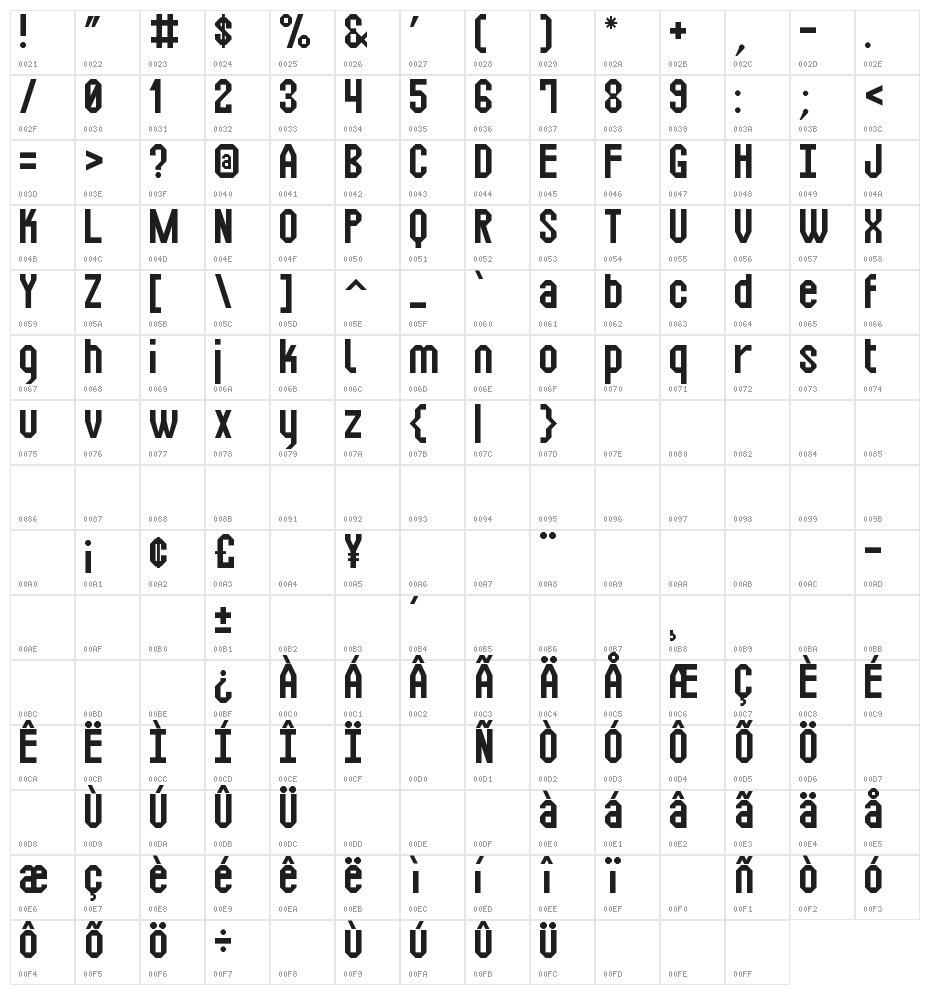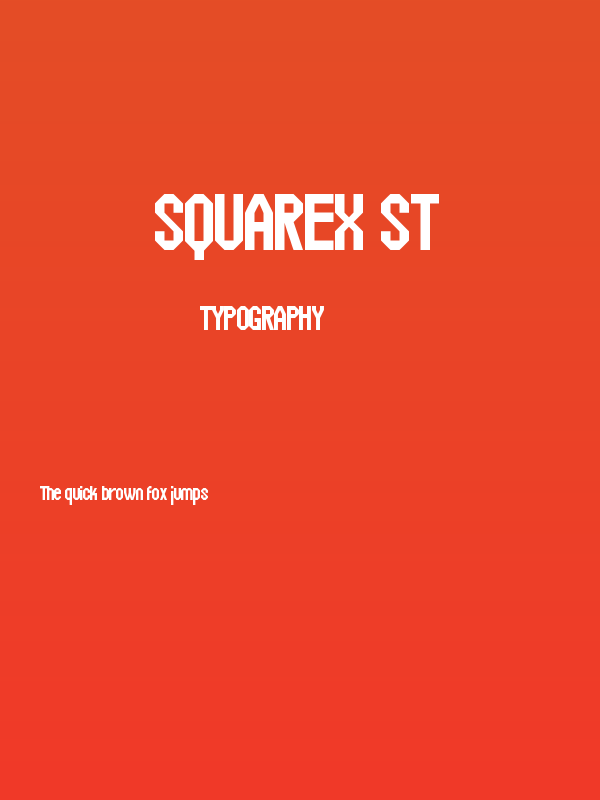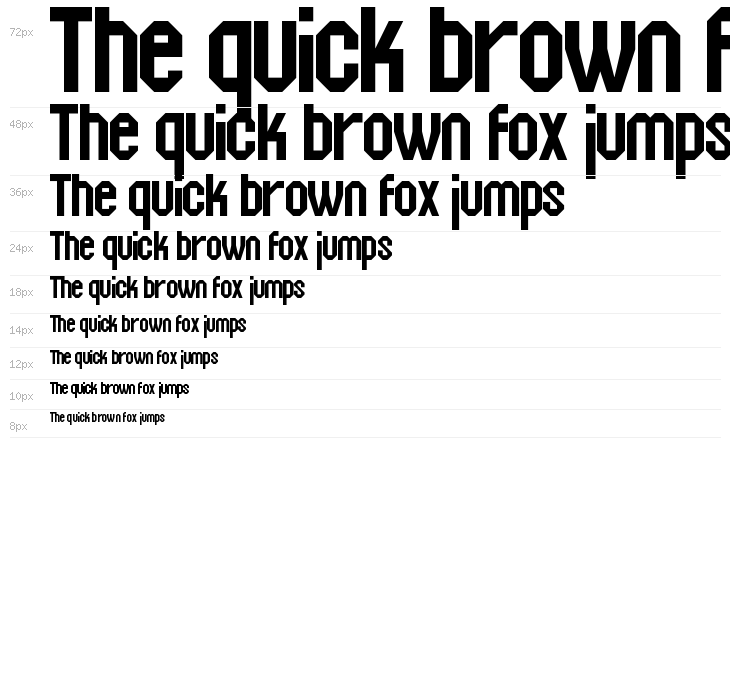
Squarex St Font
Squarex St Description
This font features a bold, geometric design with a strong emphasis on straight lines and sharp angles. The characters are uniformly constructed with a blocky appearance, giving it a modern and industrial feel. The uppercase and lowercase letters maintain a consistent height, contributing to a cohesive look. Numbers and special characters are designed to match the overall style, ensuring uniformity across all glyphs. The font's boldness makes it highly legible, even at smaller sizes, while its unique style adds a distinctive touch to any text.
Proposed ProjectsIdeal for branding, posters, headlines, and any project requiring a strong, modern typeface.